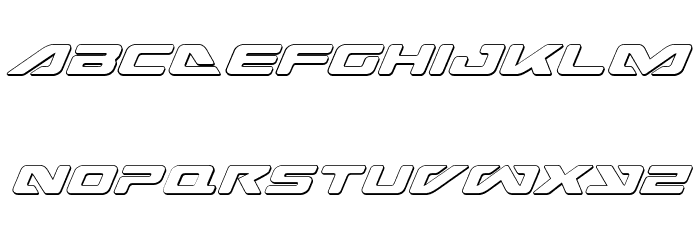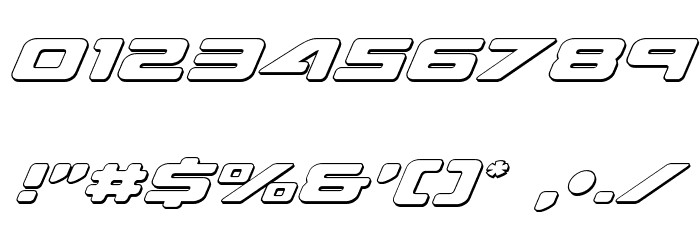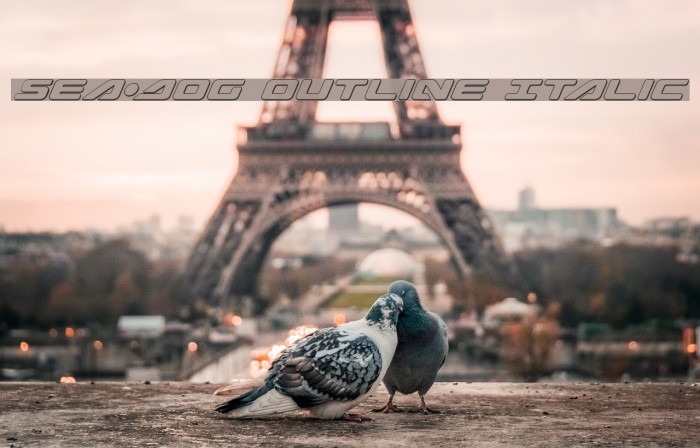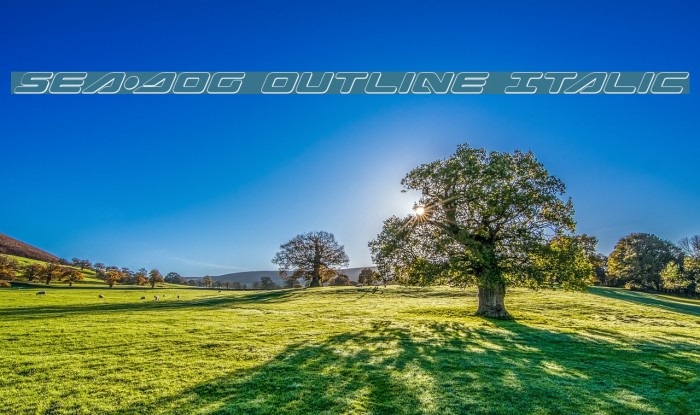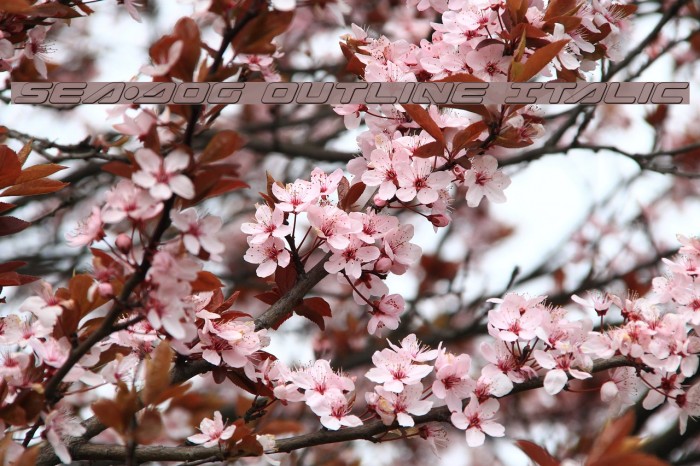
Sea-Dog Outline Italic Font
This font features a distinct outline style with a futuristic and geometric aesthetic. The characters are italicized, giving them a dynamic and forward-leaning appearance. The design is clean and modern, with each letterform having a consistent stroke width that creates a uniform look. The uppercase and lowercase letters maintain a cohesive style, while the numbers and special characters complement the overall design. The font's outline nature makes it suitable for projects that require a bold and eye-catching display, while the italic slant adds a sense of motion and energy.
A futuristic, italicized outline font with a geometric design.
- Proposed Projects: Ideal for sci-fi themed projects, modern branding, posters, and digital media.